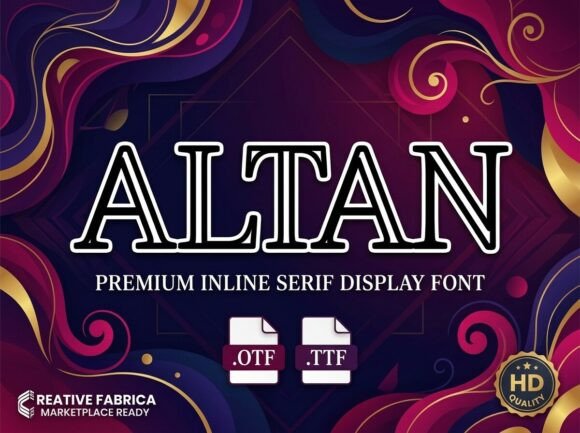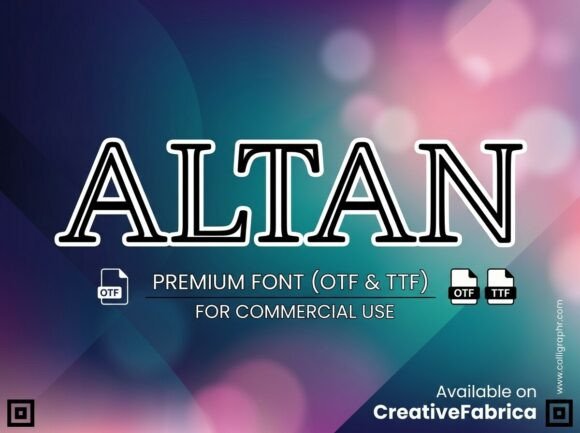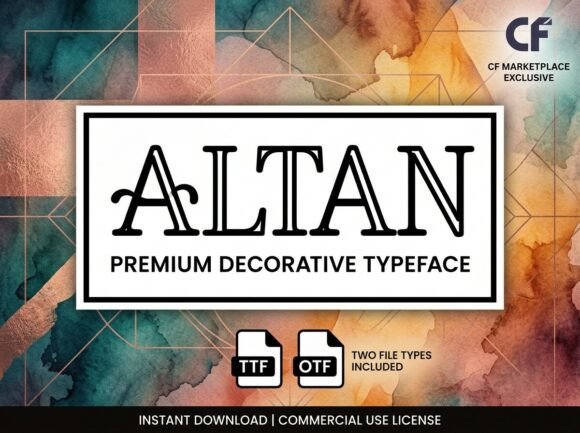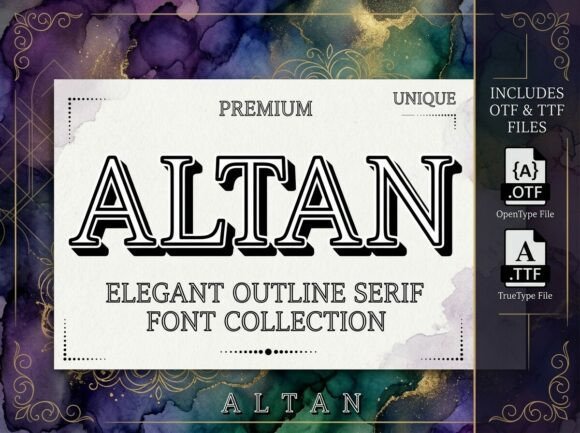
Introduction to Altan Font
Define your brand with Altan, a sophisticated display serif that captures a “timeless-and-tailored” soul.
This font features classic, high-contrast letterforms uniquely characterized by a rhythmic, hand-drawn “double-outline” structure and a deep 3D drop shadow that bridges the gap between vintage bank-note engraving and modern premium branding With its balanced structural weight and authoritative personality, Altan is the premier choice for independent law firm identities, luxury watch packaging, high-end editorial headers, and high-impact “stately-and-sophisticated” social media content.
Why Choose Altan Font?